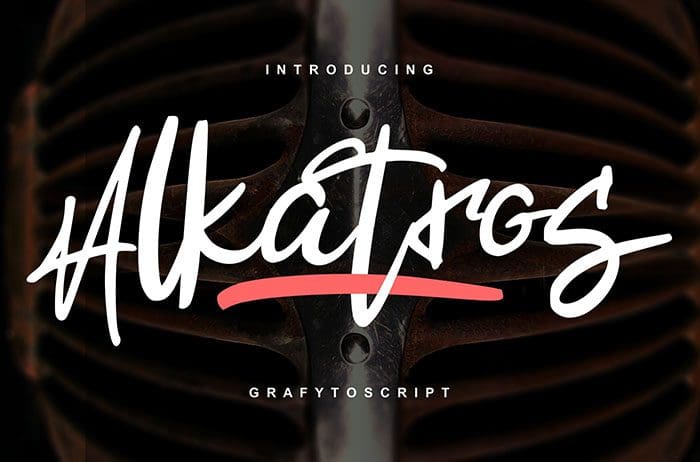
Alkatros Script Font
Alkatros is a friendly and modern script font. Can be used for various purposes. such as headings, labels, logos, posters, t-shirt, etc. Thanks to Vunira Studio for sharing this font! Take a look at this portfolio for more of his stunning fonts.